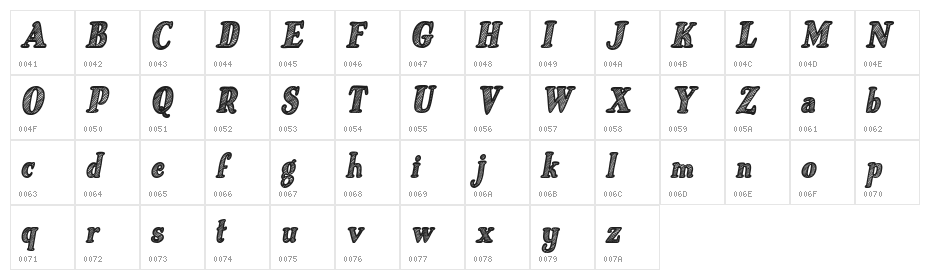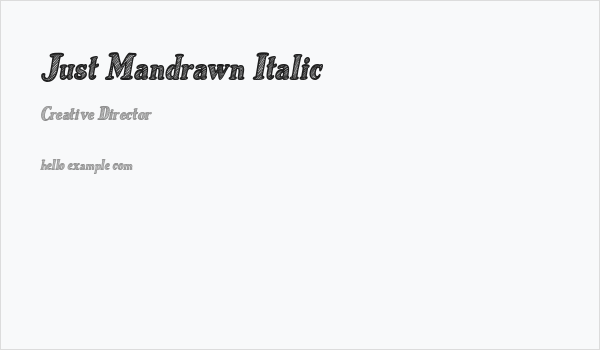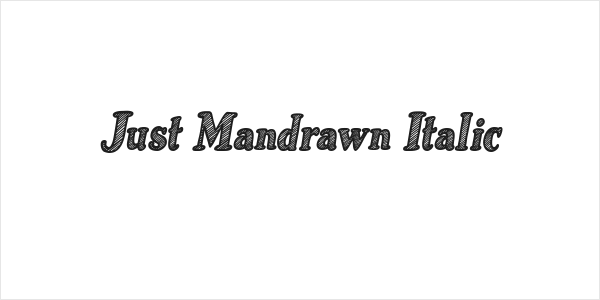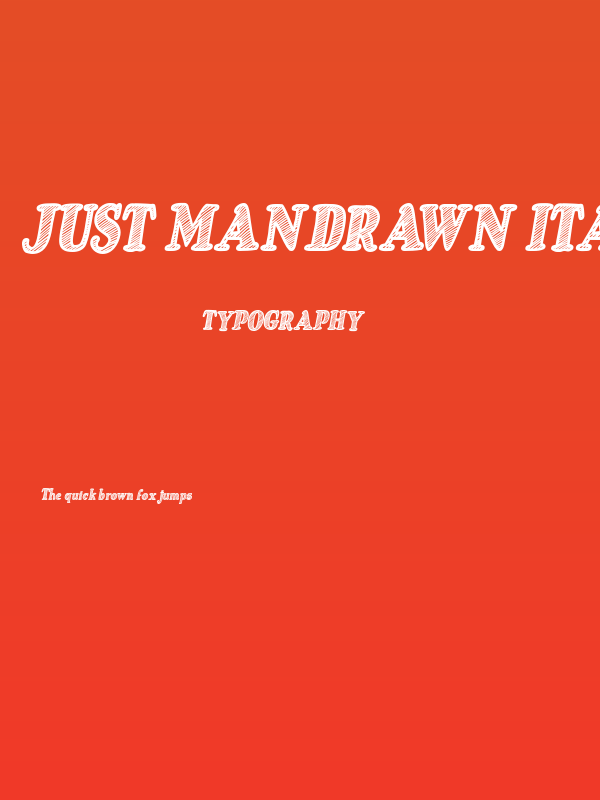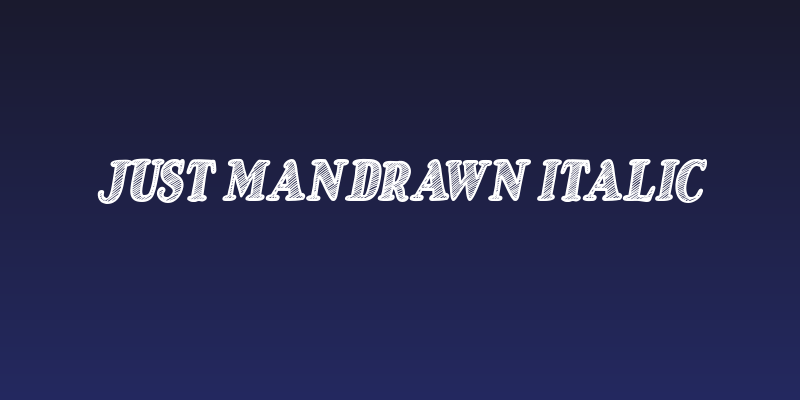
Just Mandrawn Italic Font
Just Mandrawn Italic Description
This font features a distinctive hand-drawn style with a playful and artistic flair. Each character is filled with diagonal lines, giving it a textured appearance that adds depth and personality. The letters are slightly slanted, enhancing the italicized look, and the strokes are bold, making it stand out. The uppercase and lowercase letters maintain a consistent style, with rounded edges and a whimsical touch. The numbers and special characters follow the same design, ensuring uniformity across all elements. This font is ideal for projects that require a creative and informal tone.
| Proposed Projects | Great for posters, invitations, greeting cards, and creative branding projects. |